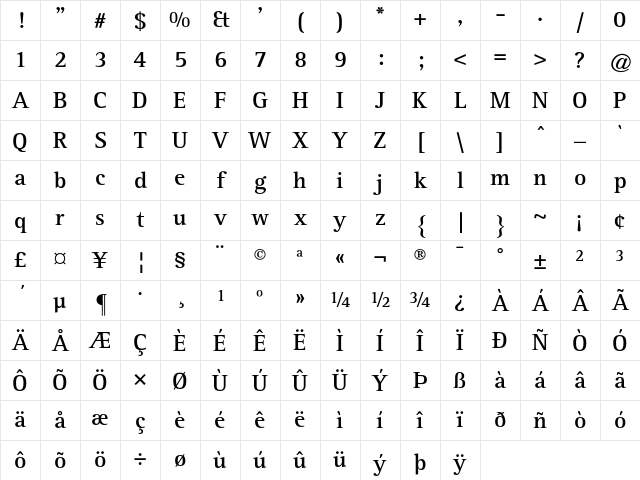
RotisSerif Regular
RotisSerif Family
Complete RotisSerif Regular glyph index. Displaying only characters natively supported by RotisSerif Regular font.
Design Context for RotisSerif
RotisSerif carries the refined structure of traditional serif typography, with bracketed terminals and considered proportions that communicate credibility and craft.
Pro Tip: Use RotisSerif for editorial body copy and considered headline work. Pair with a neutral sans for UI elements or captions to create a classic hierarchy.